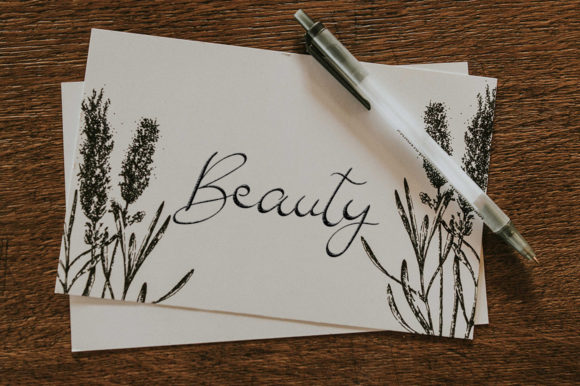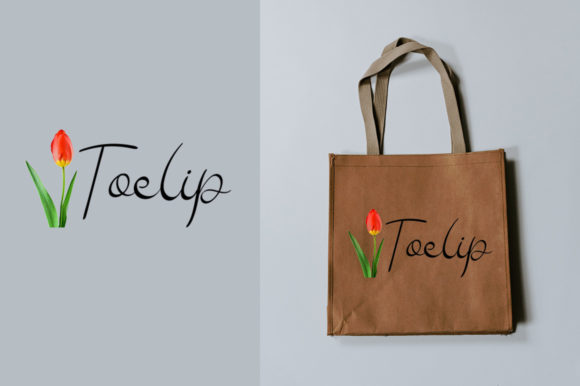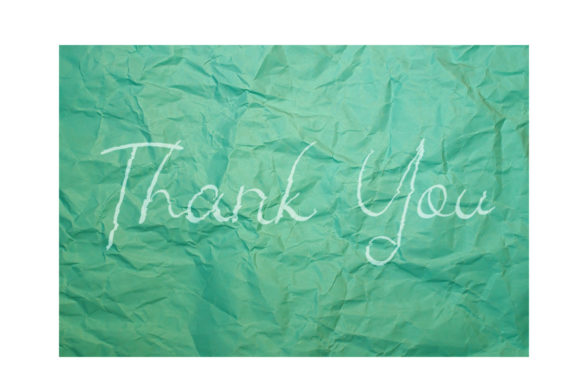
Introduction to Koreography Font
Koreography feels equally charming and elegant.
Why Choose Koreography Font?
Koreography Font offers exceptional quality and versatility, making it a valuable addition to your design toolkit. Whether you’re creating for personal projects or commercial use, Koreography Font delivers professional results.